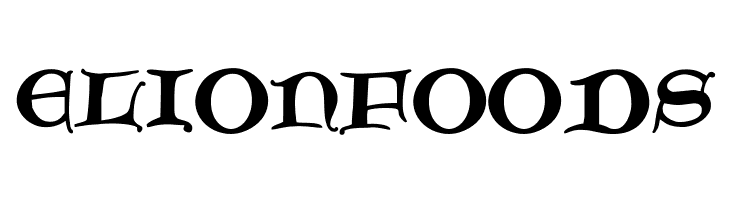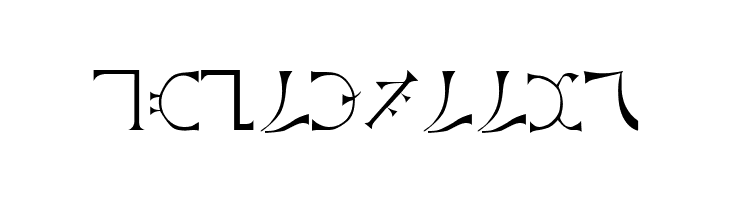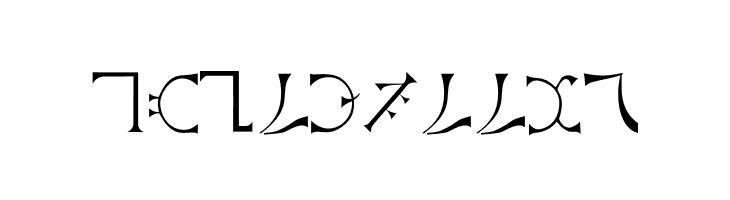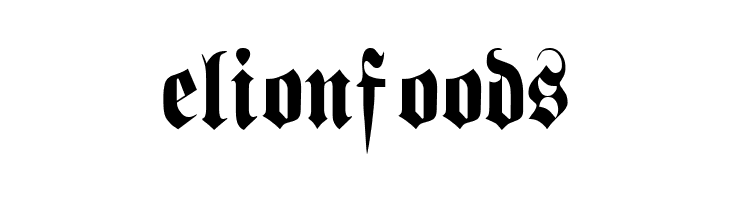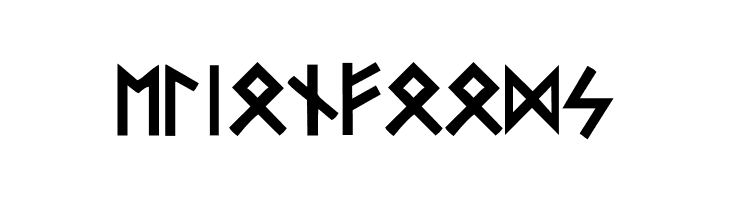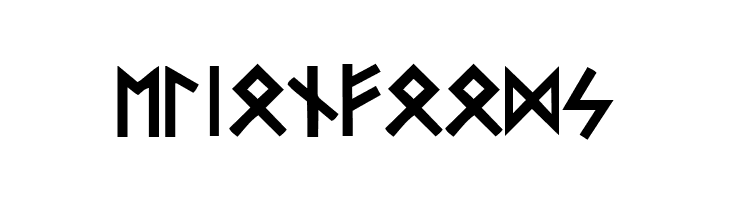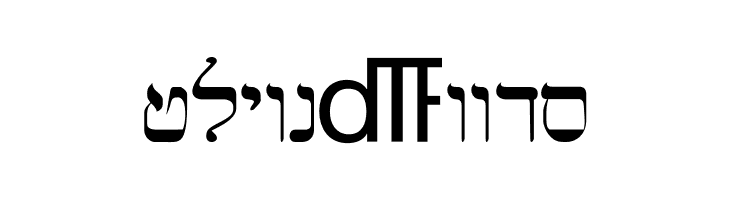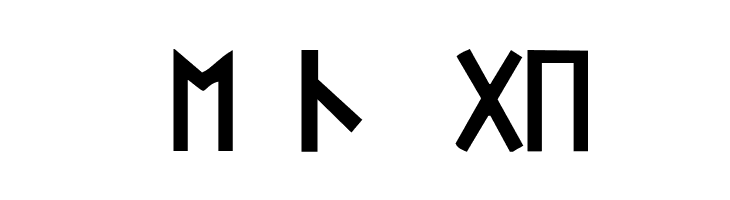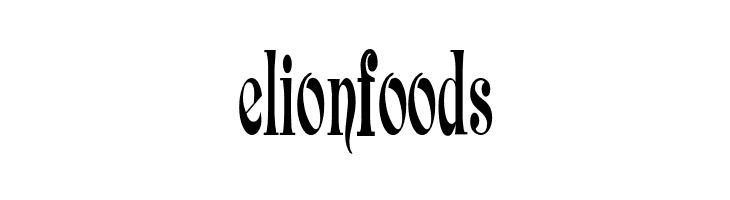
An ornate, medieval-style font with bold, decorative elements and intricate serifs.
A mystical and decorative font with intricate, esoteric designs.
A mystical and esoteric font with angular, decorative letterforms.
A traditional blackletter font with ornate, angular letterforms.
A bold, angular font inspired by ancient runic alphabets, perfect for historical or fantasy themes.
A bold, angular font inspired by ancient runic alphabets, perfect for mystical or historical themes.
A symbolic, decorative font with alchemical and esoteric influences.
The image contains non-standard symbols or runes.
A bold, high-contrast decorative font with dramatic serifs and curves.
A bold, high-contrast font with ornate serifs and dramatic style.